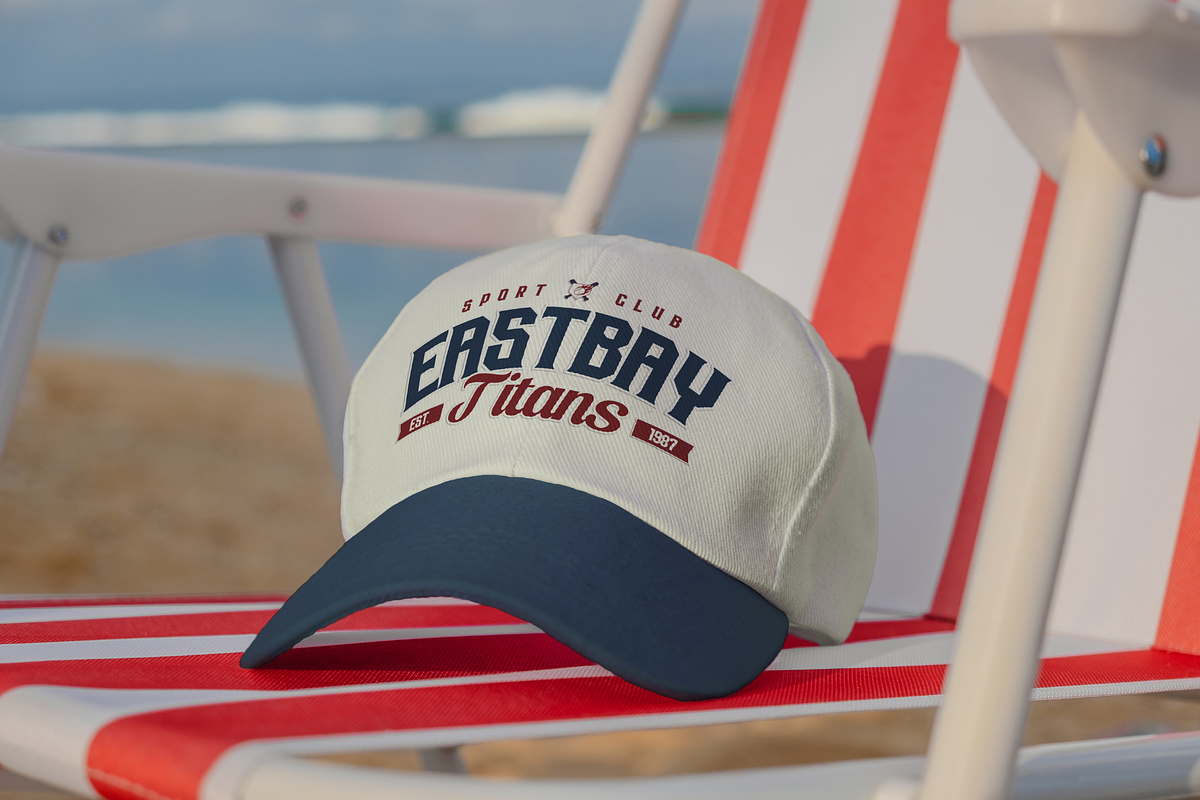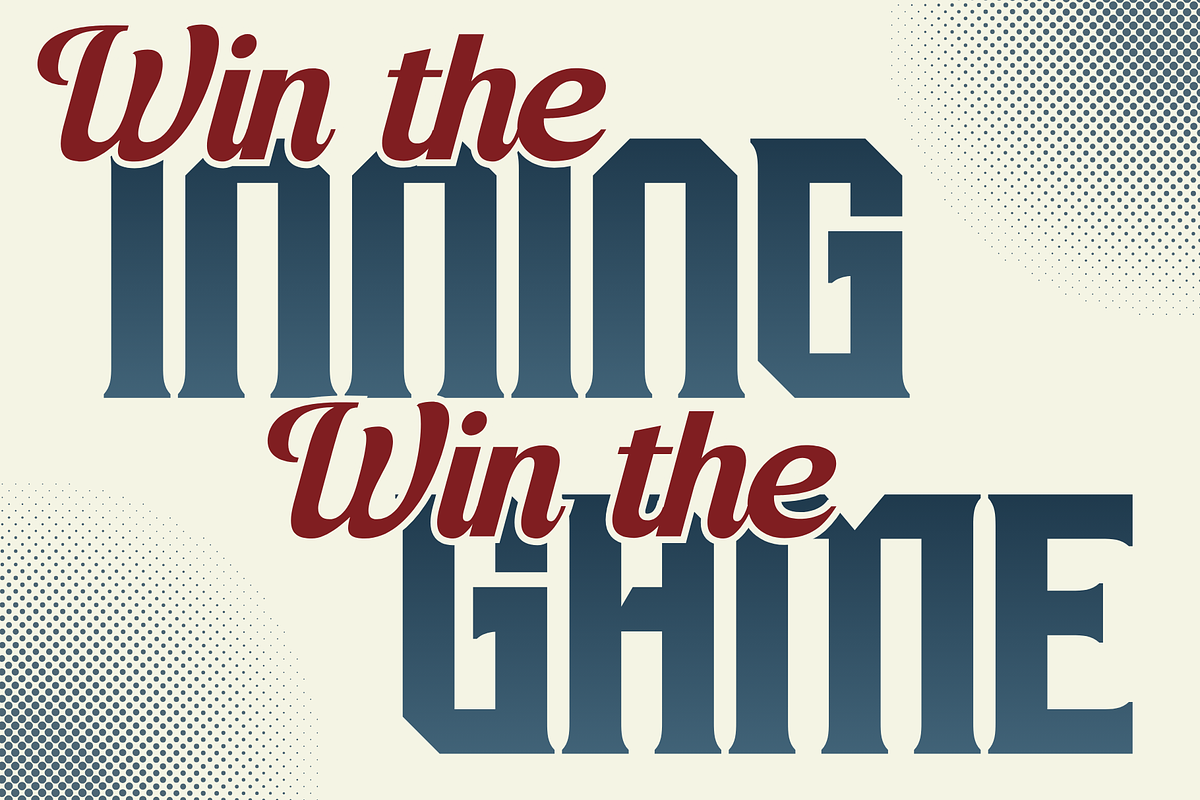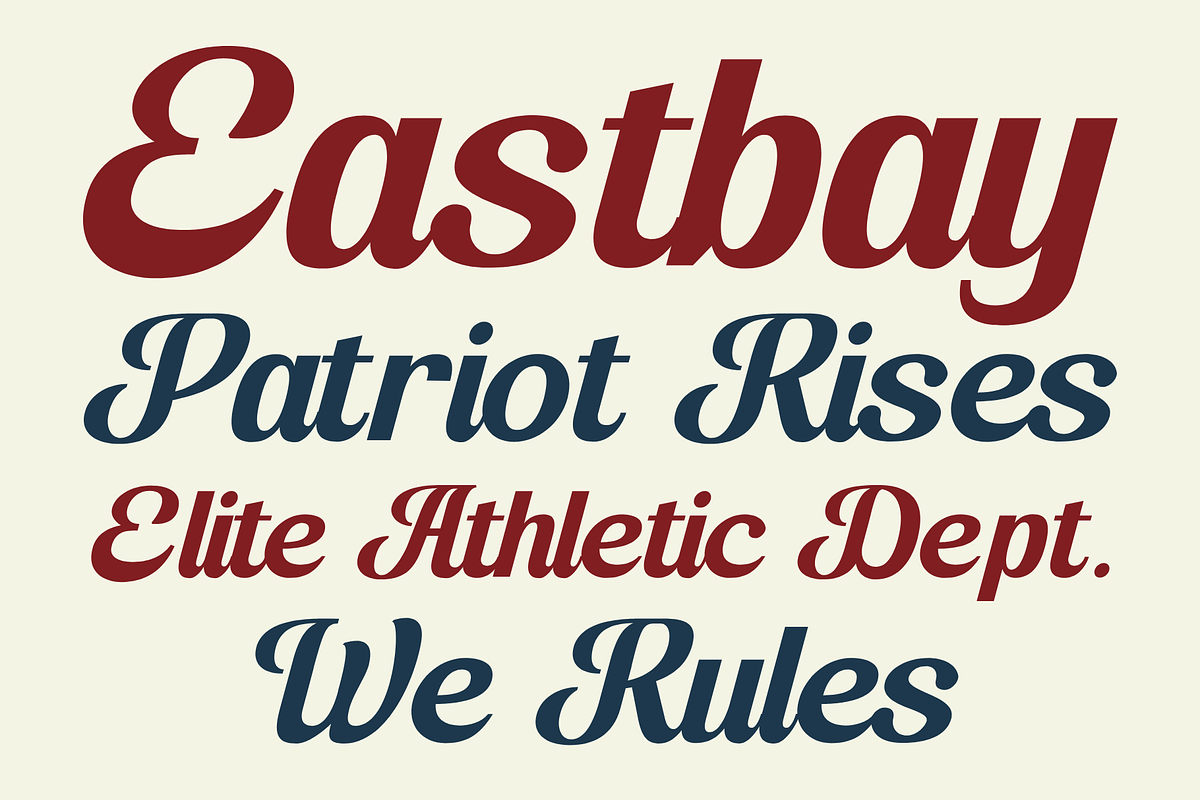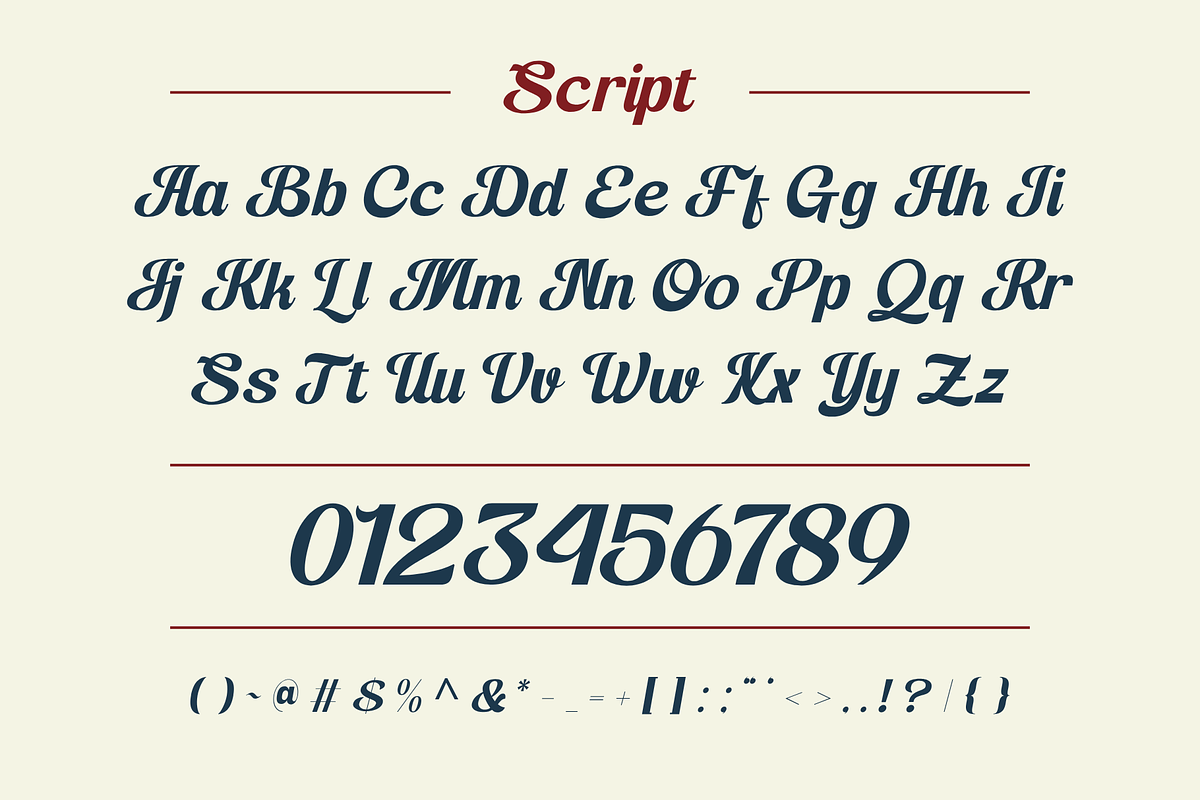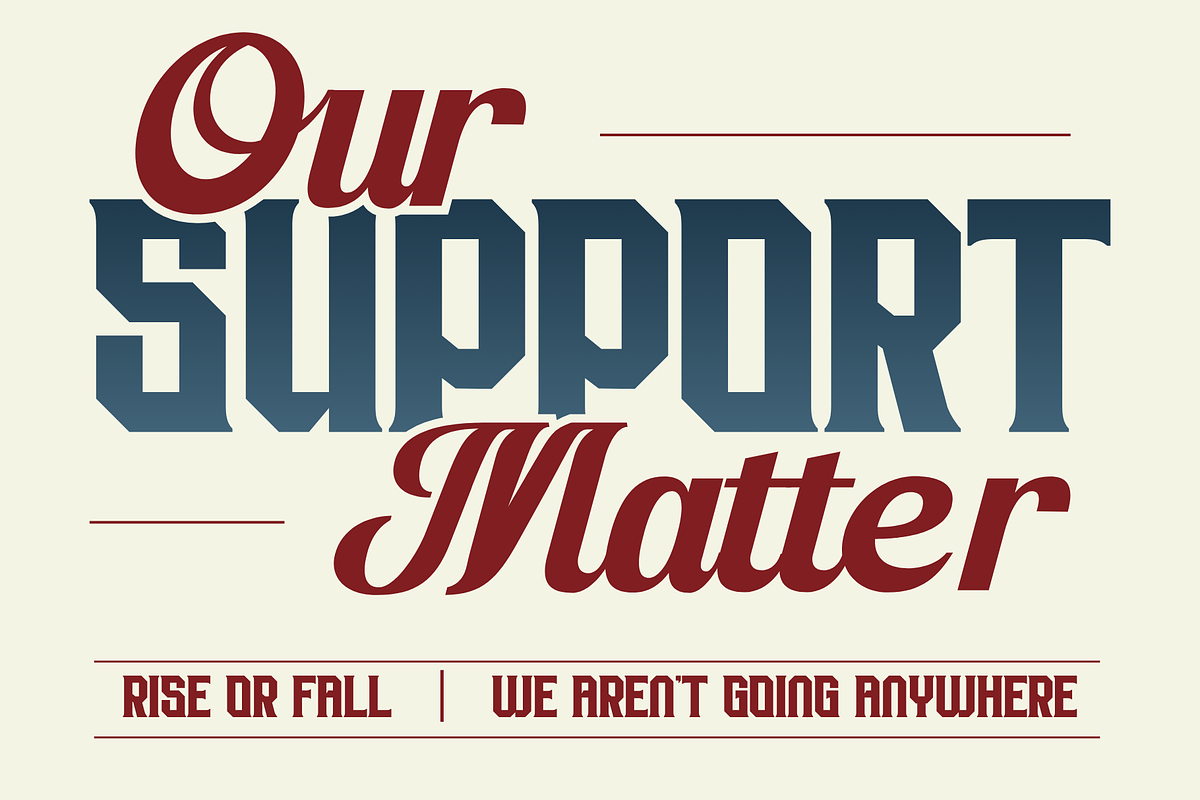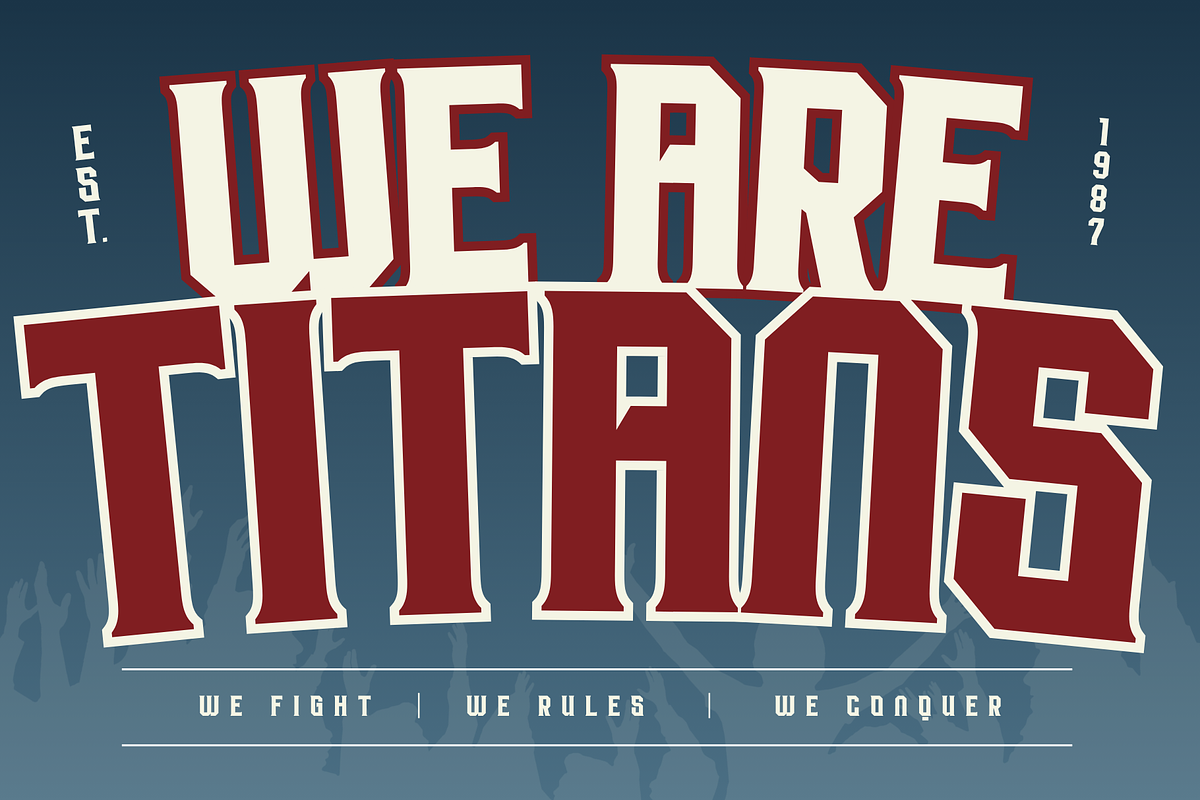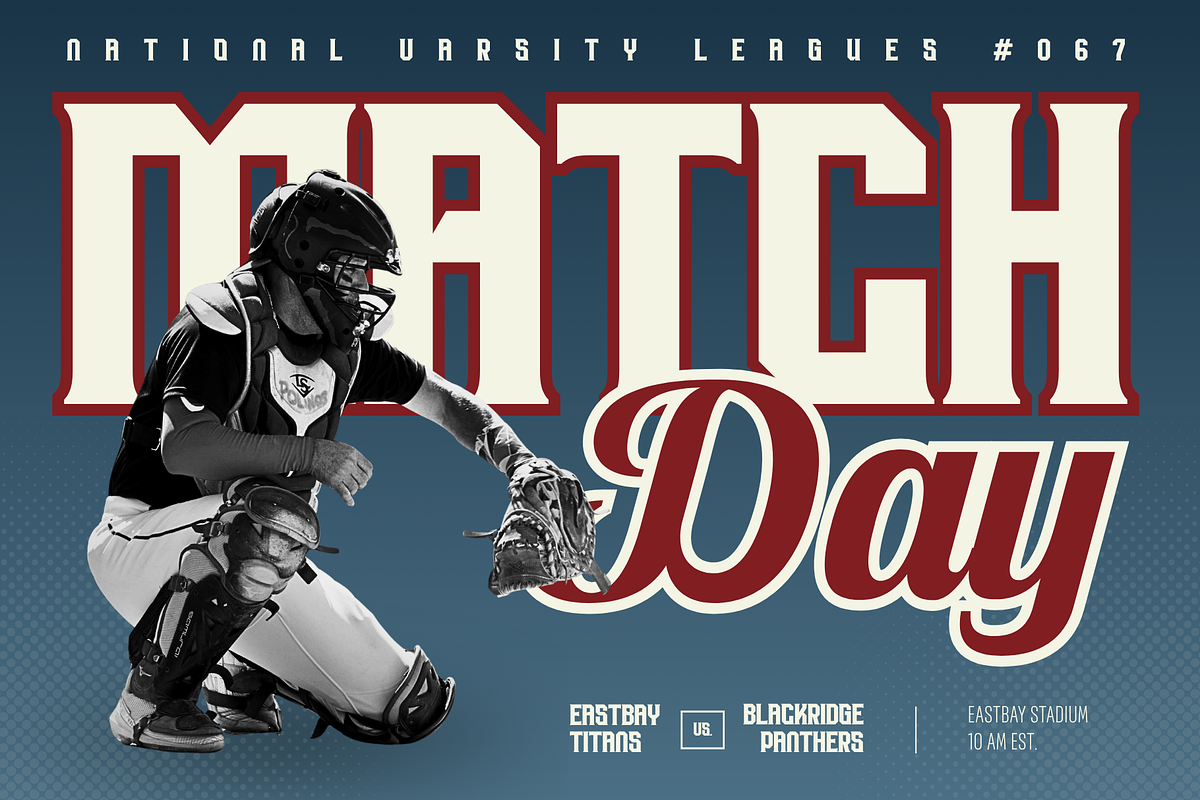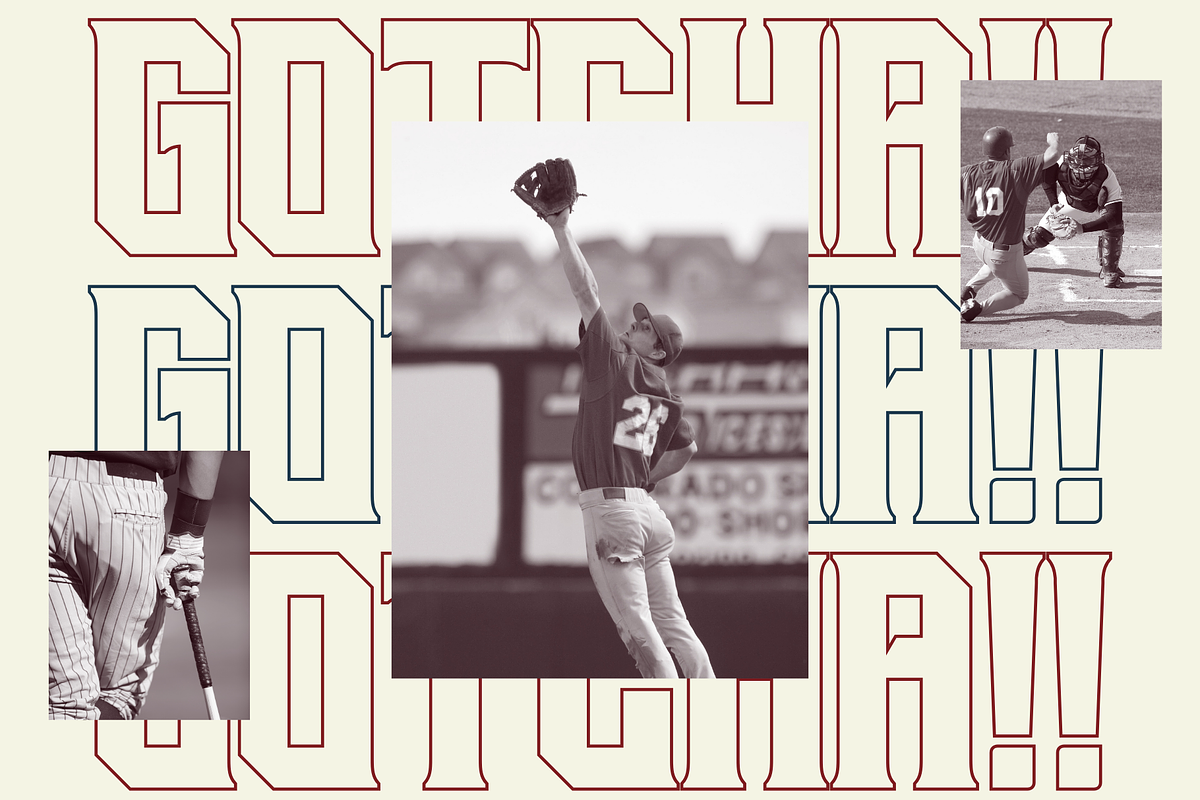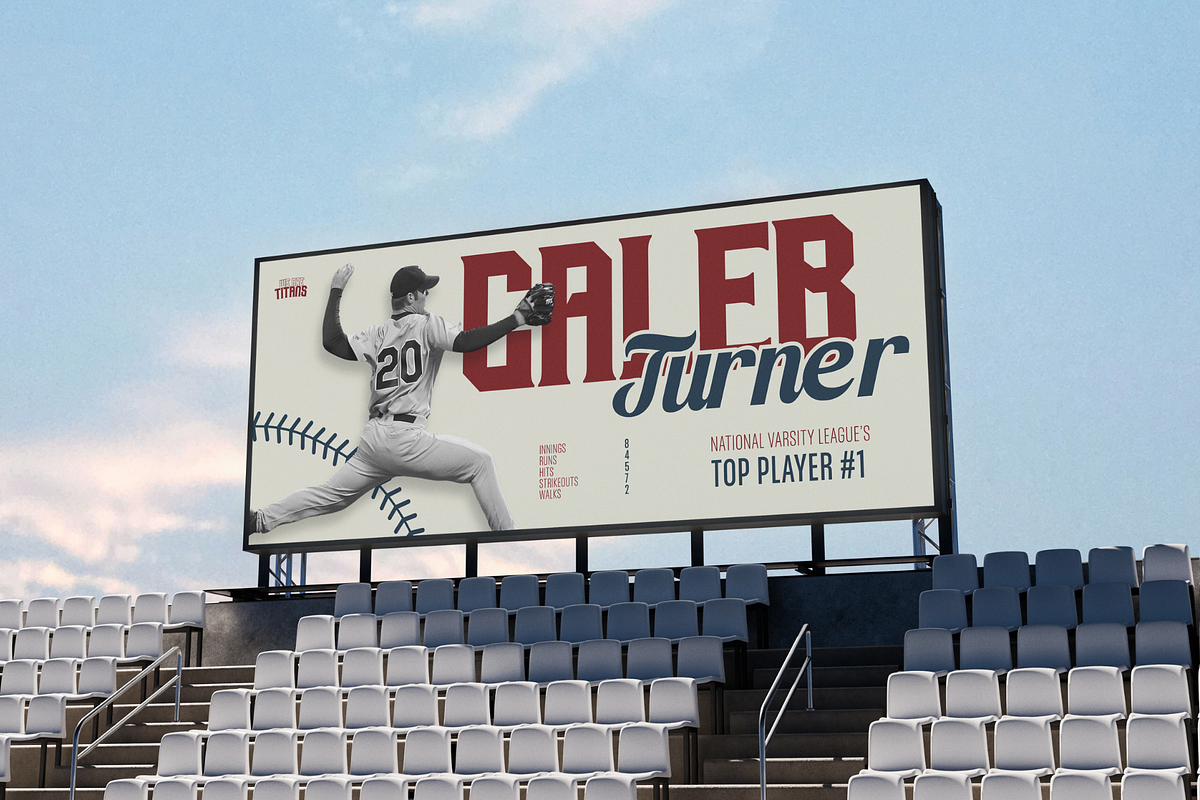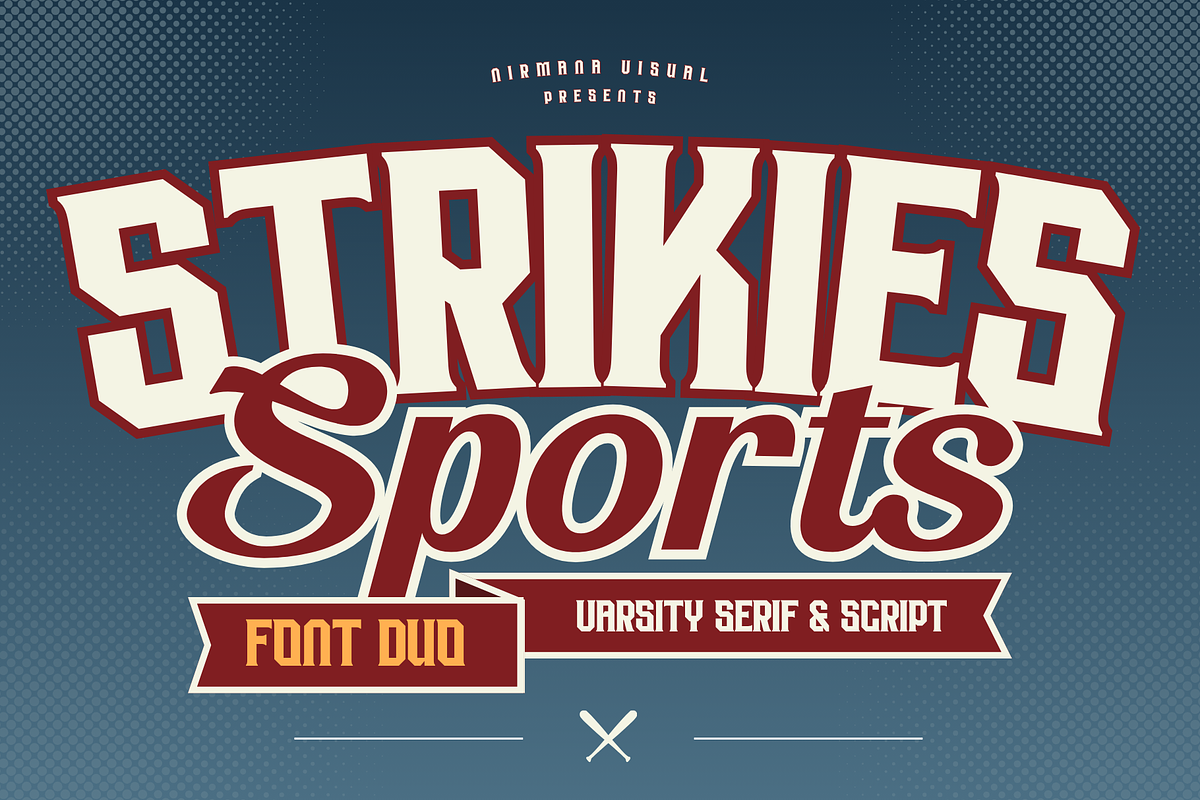
Strikies Sports - Logo Sports
Strikies Sports is a bold and dynamic baseball-inspired font that blends classic script elegance with strong serif power. Designed for athletes and teams, it captures the spirit of the game through smooth curves and confident strokes. The script elements bring motion and style, while the bold serif adds strength and readability. Perfect for jerseys, logos, and sports branding, Strikies Sports delivers a timeless yet energetic look.